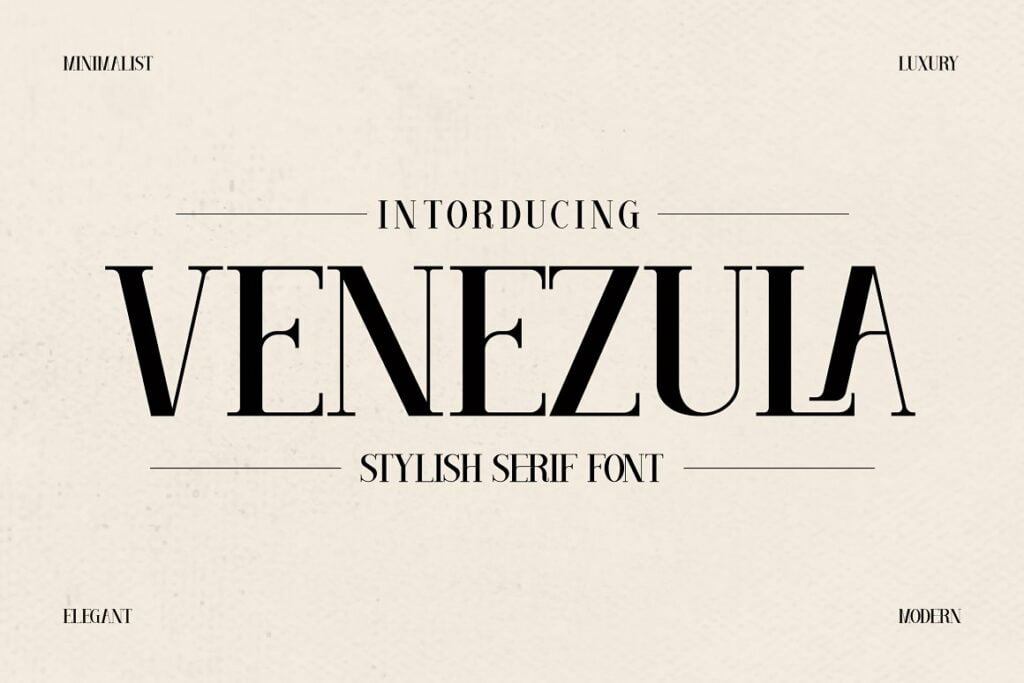
Venezula Font
Proudly present VENEZULA Typeface, created by Storytype, A serif modern and classic typeface that has own unique style & modern look. This typeface is perfect for an elegant & luxury logo, book or movie title design, fashion brand, magazine, clothes, lettering, quotes, and so much more.
VENEZULA Serif Font